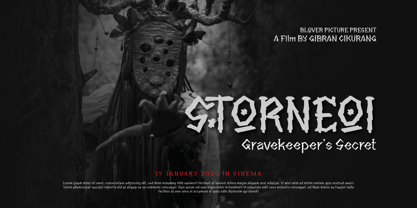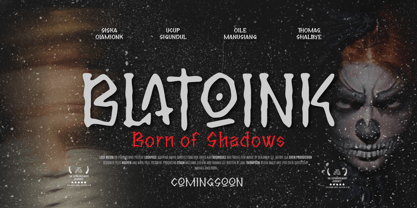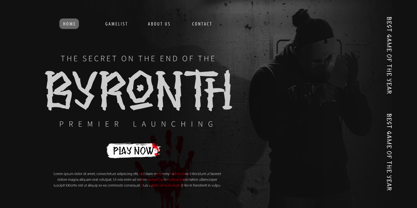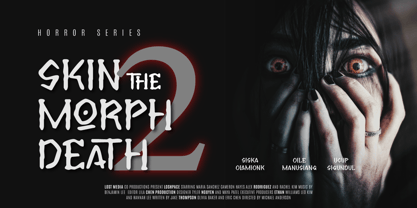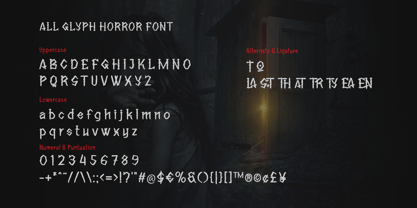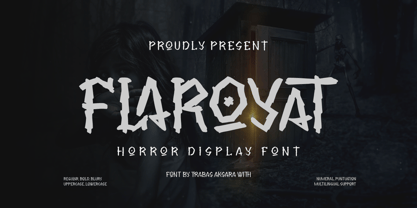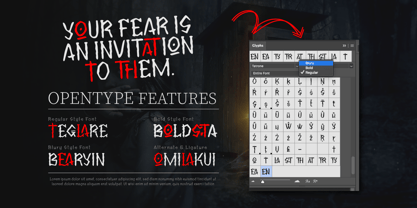
Flaroyat
by Trabas Kriya
The Flaroyat Font Family was designed by Murozakul Akhsan and published by Trabas Kriya. Flaroyat contains 3 styles and family package options. More about this family
Flaroyat - Horror Display Font is a very spooky typeface that captures the eerie and terrifying essence of horror. Its sharp and dramatic letterforms create an unsettling atmosphere, perfect for scary movie titles, game posters, haunted house flyers, and any design that needs a little bit of fear. Flaroyat stands out with its very bold style, making it an ideal choice for horror fans.
Unleash the fear with Flaroyat and make your designs scream with intensity.
Designers: Murozakul Akhsan
Foundry: Trabas Kriya